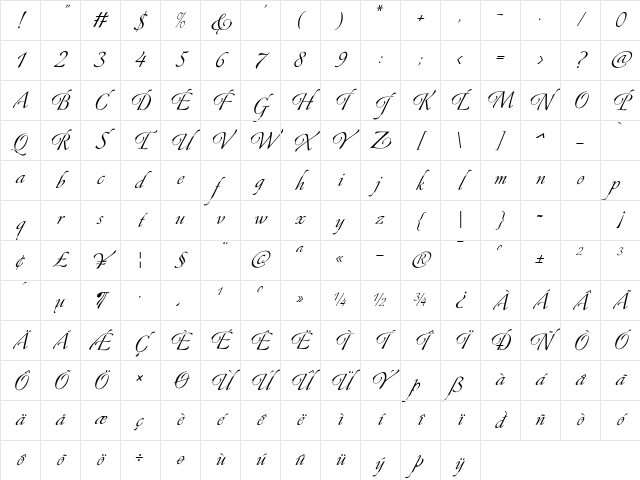
Complete Canette- Regular glyph index. Displaying only characters natively supported by Canette- Regular font.
Canette- is a composed and adaptable typeface that performs quietly and consistently across a wide range of design contexts.